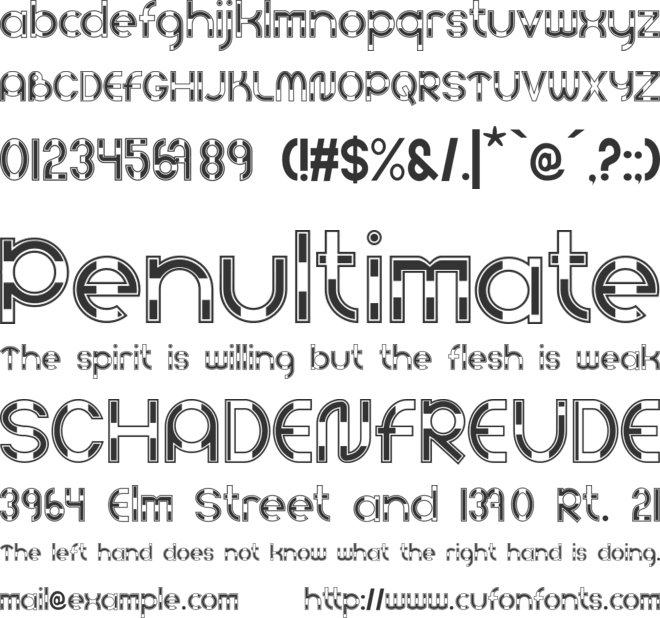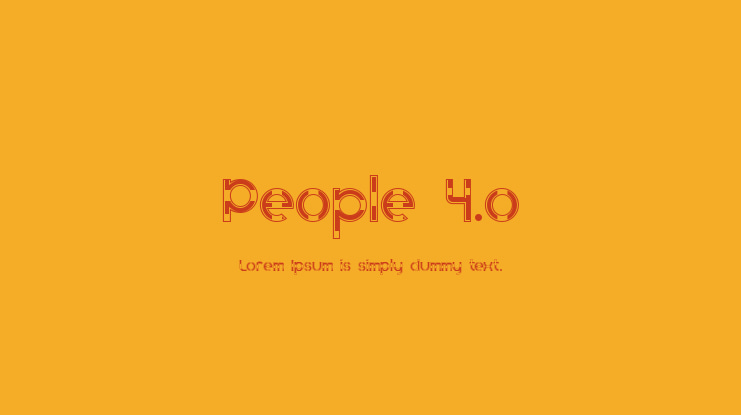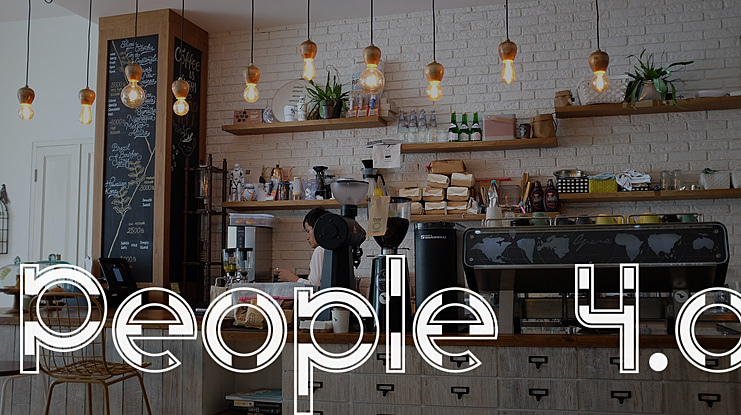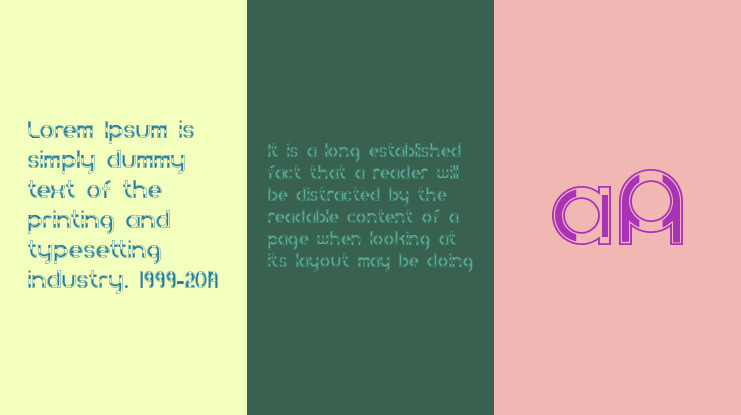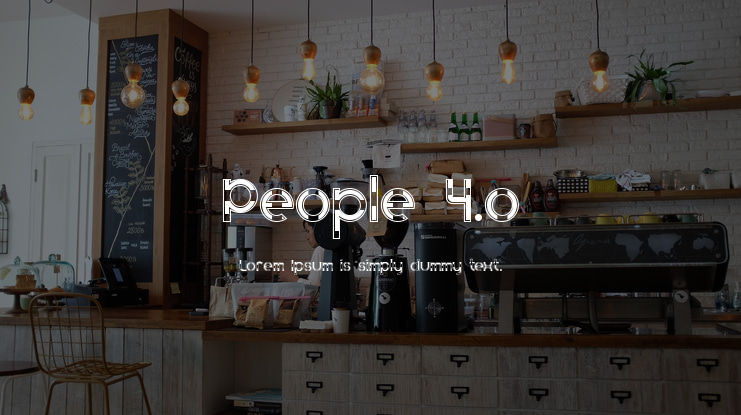
People 4.o Font
People 4.O is amazing font. Unik and Elegant. Can be used for Heading Text or Other Design. 100% free for personal use. if you have problem contact me in . thanks